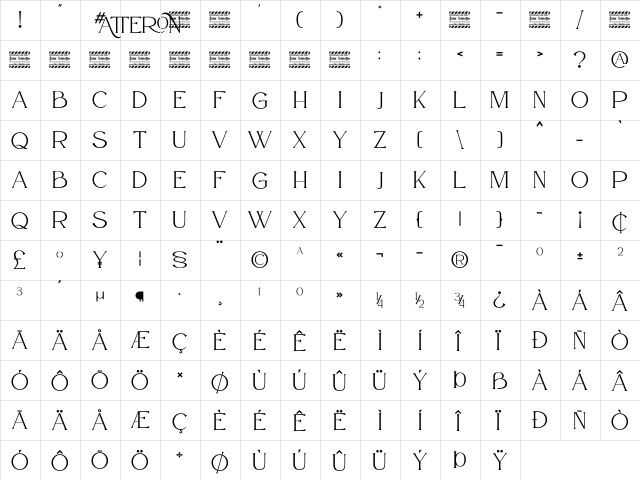
Atteron Personal Use Regular
| Designer | Donis Miftahudin |
Design Context for Atteron Personal Use Typeface
Atteron Personal Use takes a measured approach to typography — its balanced proportions and neutral character make it a reliable workhorse for both digital and print work.